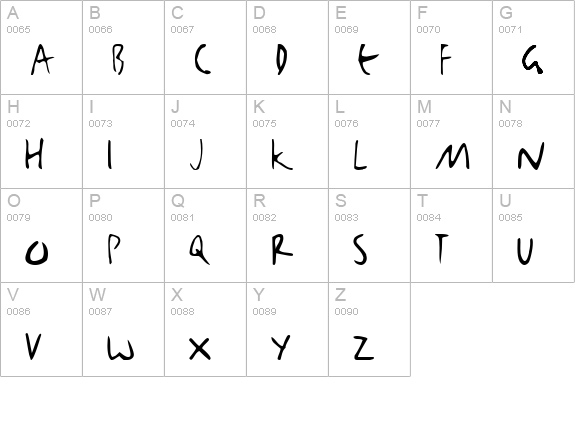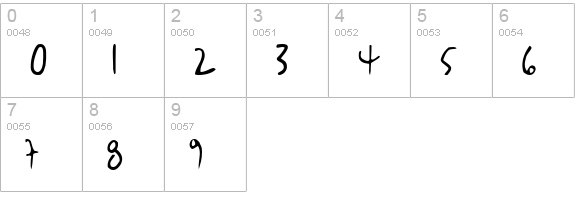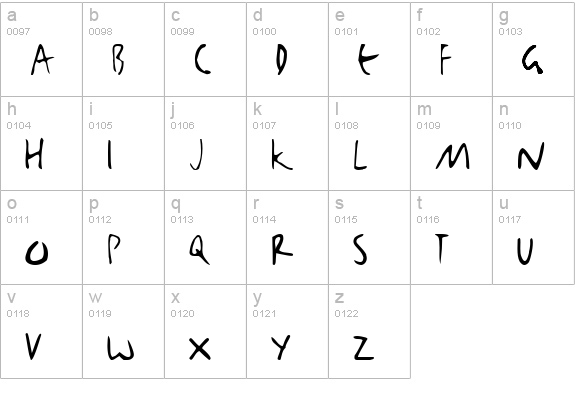
BjBj-TOO Font Details
BjBj-TOO font is a versatile and stylish typeface that exudes elegance and creativity. With its unique design and intricate details, this font is perfect for a wide range of design projects, from branding to advertising to invitations. The distinctive curves and sharp edges of BjBj-TOO font make it stand out from the crowd and give any text a modern and sophisticated look. What's even better is that BjBj-TOO font is available for free download at FontsMarket.com. This means you can easily access this stunning font and use it in your projects without any cost. Whether you're a professional designer or a hobbyist, BjBj-TOO font offers endless possibilities for creativity and expression. Don't miss out on the opportunity to enhance your designs with this beautiful and free font.